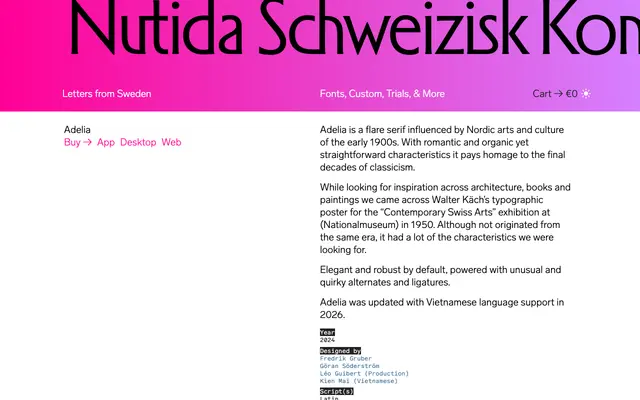
Adelia
A flare serif drawing on Nordic arts and classicism of the early 1900s, loaded with quirky alternates and ligatures across two weights.
Designed by Fredrik Gruber, Göran Söderström and Léo Guibert at Letters from Sweden, Adelia takes its cues from architecture, painting and books of Nordic classicism, with a particular debt to Walter Käch's typographic poster for a 1950 Contemporary Swiss Arts exhibition. Two weights, Light and Regular, carry an extensive character set with OpenType alternates across eleven stylistic sets, discretionary ligatures and oldstyle numerals. Vietnamese support was added in 2026, broadening the family's Latin coverage considerably.
Described explicitly as a flare serif, the design draws on Nordic classicism of the early 1900s with organic, romantic characteristics that bridge transitional and humanist serif traditions.